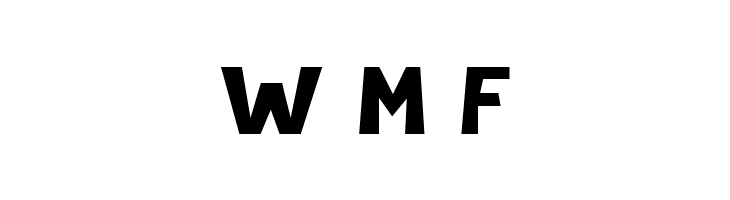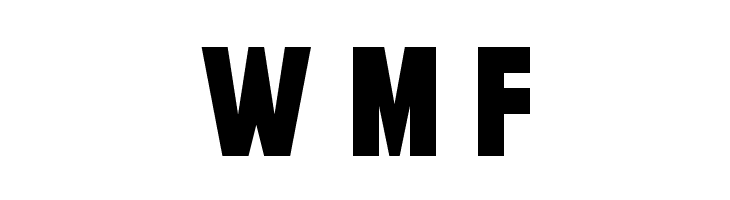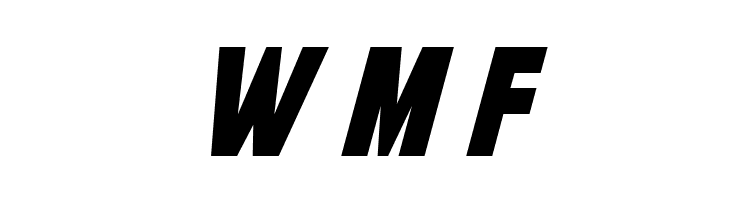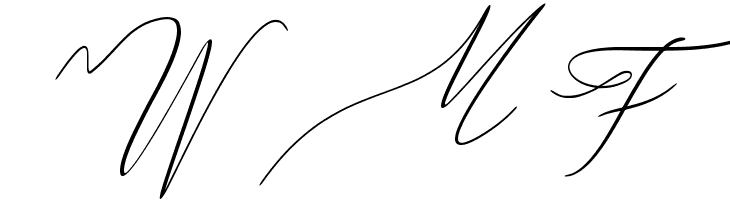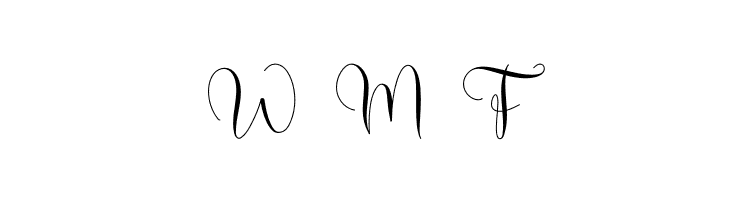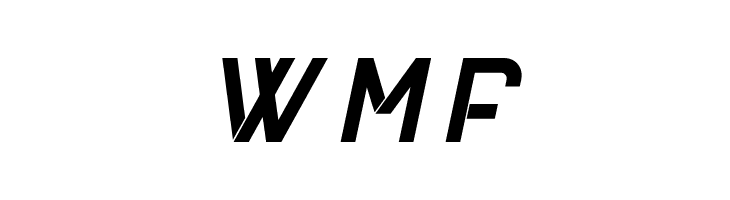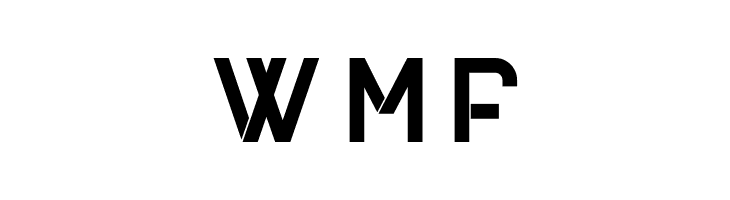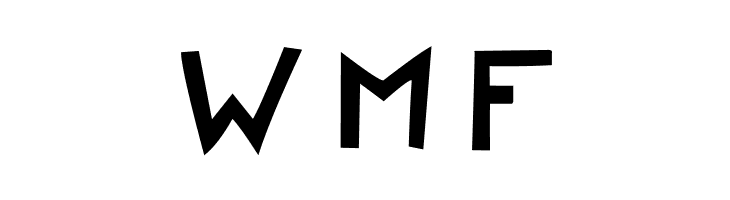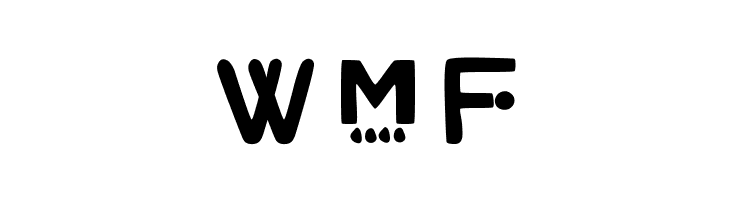
• Full Dece Sans
• Fun Zone - Personal Use
( Fonts by Alif Ryan Zulfikar )
A bold, angular font with a playful and energetic style.
• Furia & Venganza
( Fonts by Juan Casco - www.juancasco.net )
A bold, Gothic-inspired font with sharp, angular lines and intricate detailing.
• Futurafrica
• Future Friends
A bold, geometric font with a modern and impactful design.
• Future Friends Italic
A bold, italic font with a modern and dynamic style.
• Future Techno
A futuristic, geometric font with angular letterforms and a modern aesthetic.
• Future Techno Italic
A bold, italic, futuristic font with angular, streamlined characters.
• Galeyala
An elegant script font with flowing, intricate loops and swashes.
• galgadot
An elegant and flowing script font with graceful curves and loops.